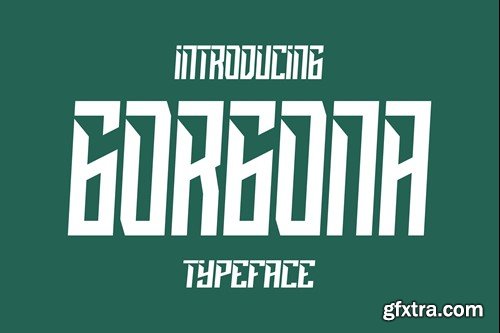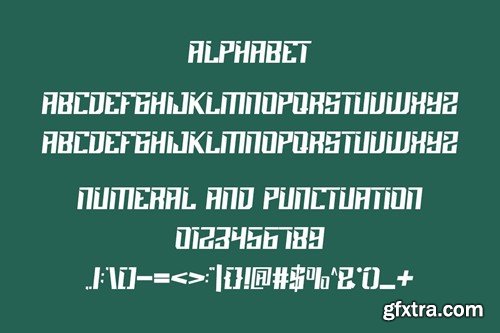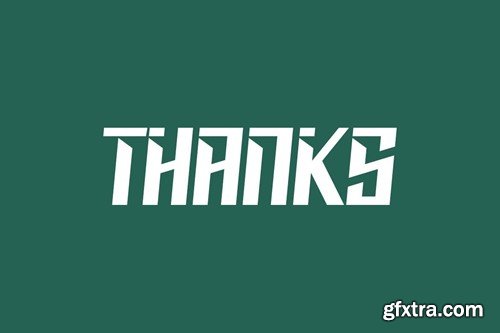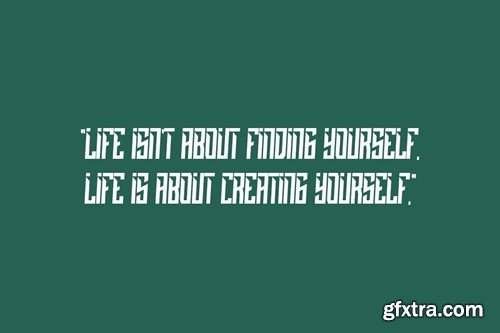
Gorgona font
Proudly present our new product Gorgona font is a modern and authentic font. Perfect for both professional and branding needs of a product. This font is suitable for any branding project like quotes, logo, blog header, poster, banding, letter, invitation, stationery, etc... Designed as a versatile and flexible that can be used on a range of projects and mediums. outstanding in a wide range of contexts. Include Files Thank you Display and cover image Not include